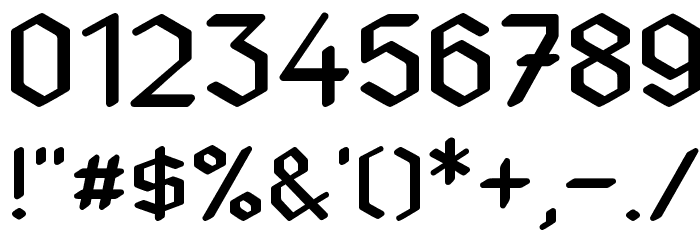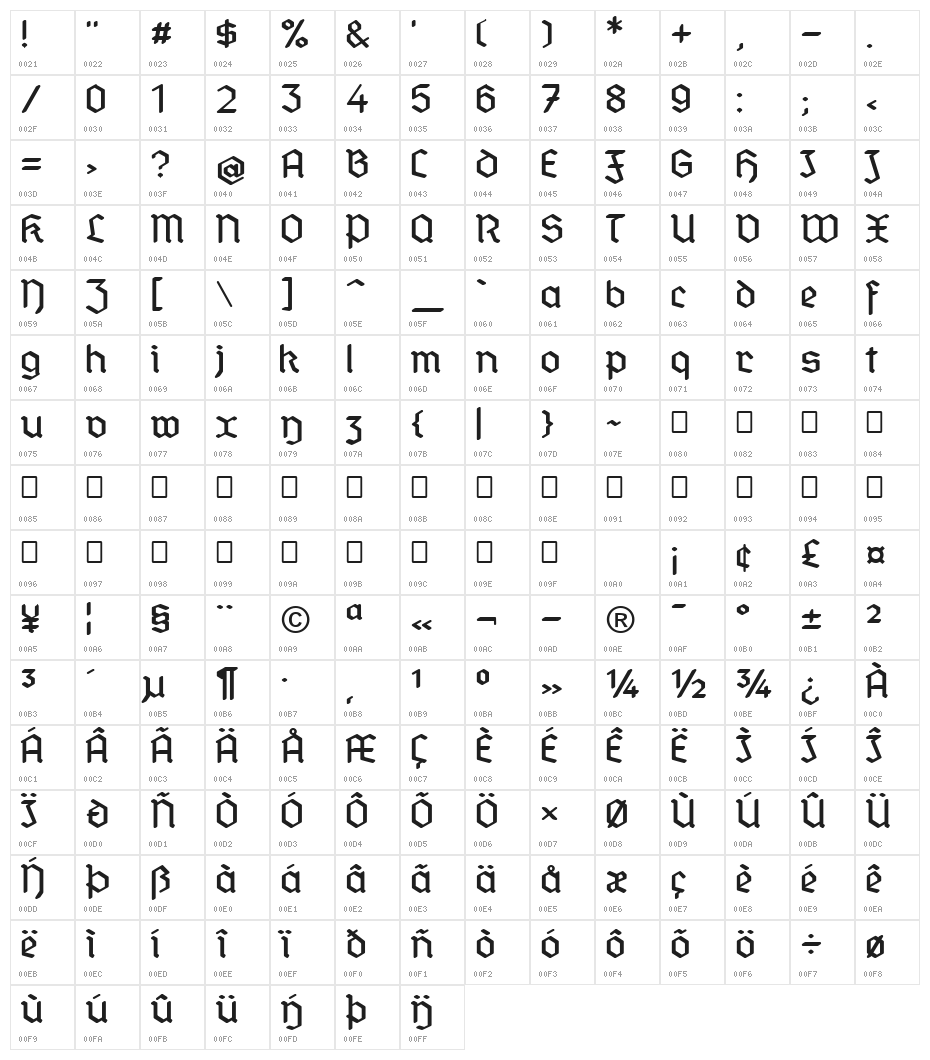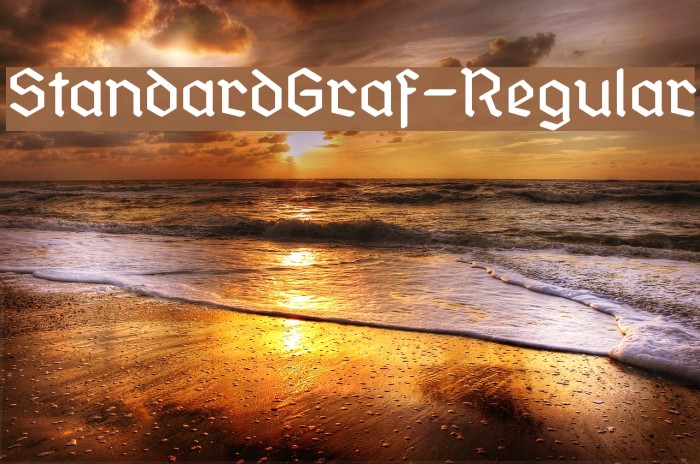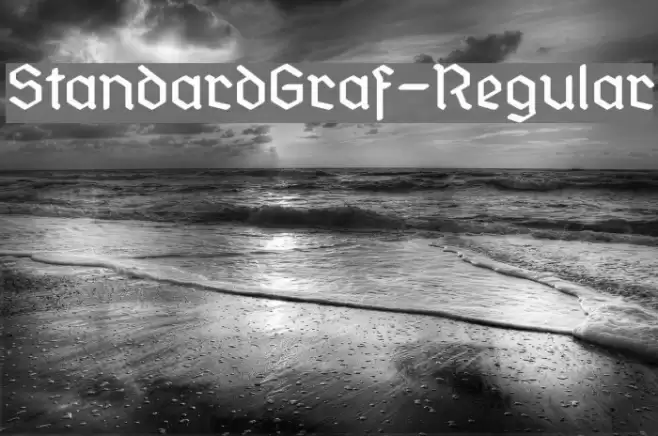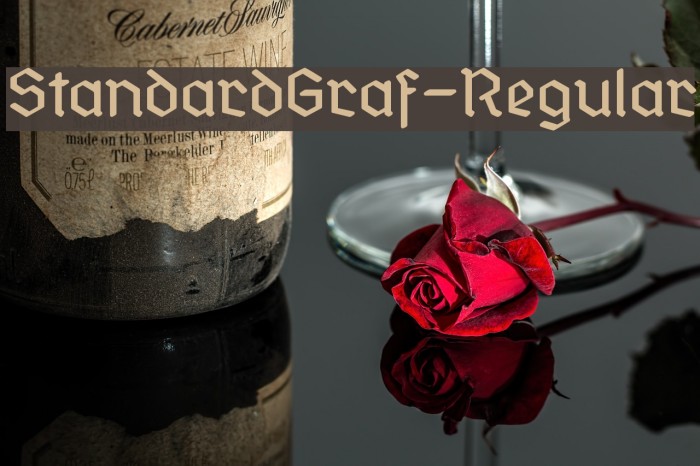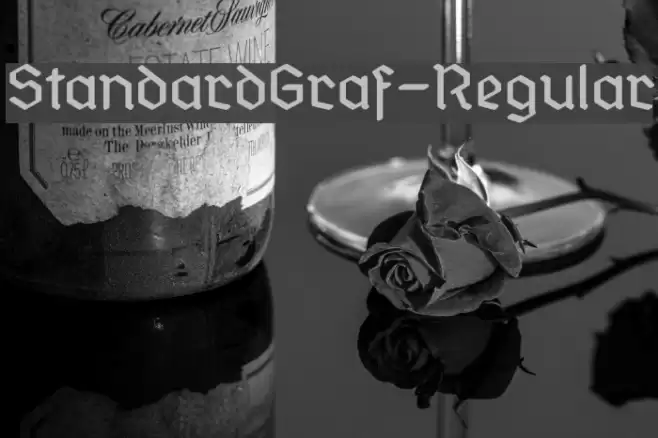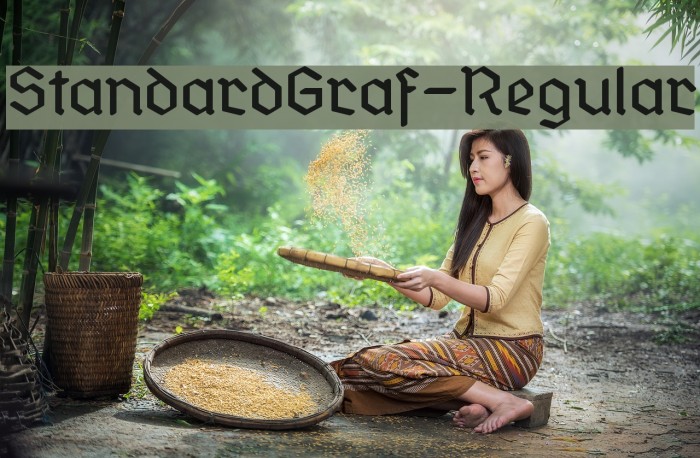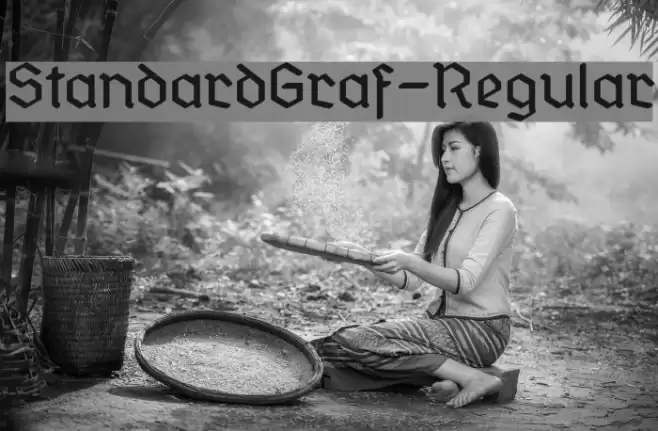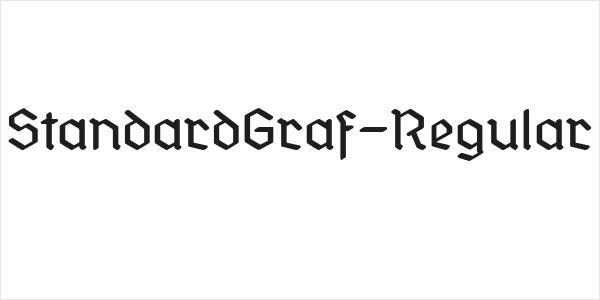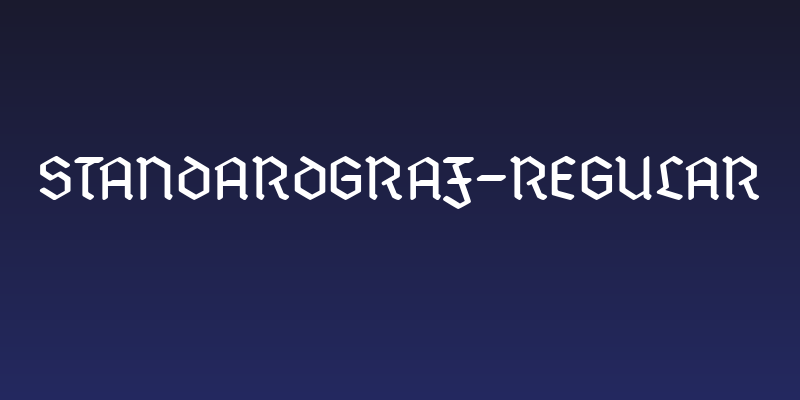
StandardGraf-Regular Font
StandardGraf-Regular Description
This font features a bold and angular design, reminiscent of traditional blackletter styles but with a modern twist. The characters are constructed with sharp, geometric lines, giving them a strong and impactful presence. The uppercase letters exhibit a distinct Gothic influence, while the lowercase letters maintain a consistent angularity that complements the overall aesthetic. The numerals and special characters follow the same design principles, ensuring uniformity across all glyphs. This font's unique style makes it suitable for projects that require a bold and distinctive look.